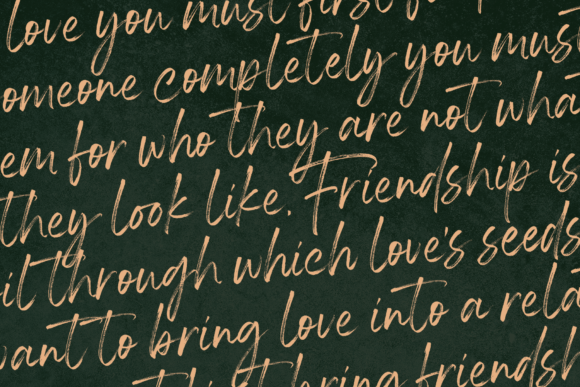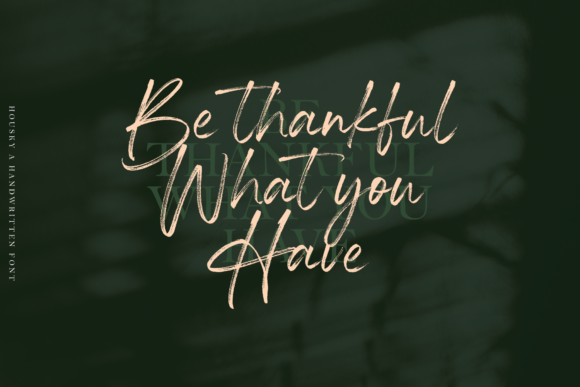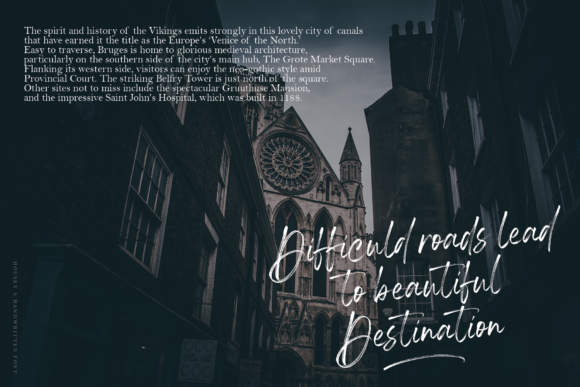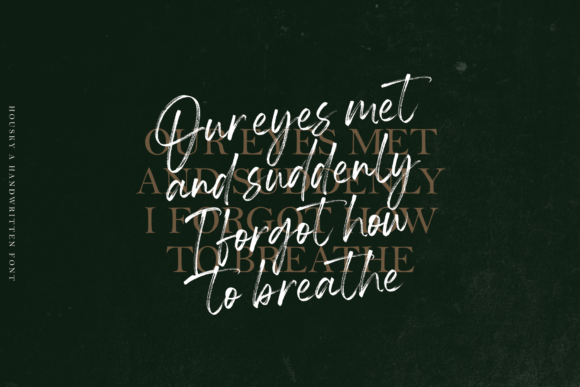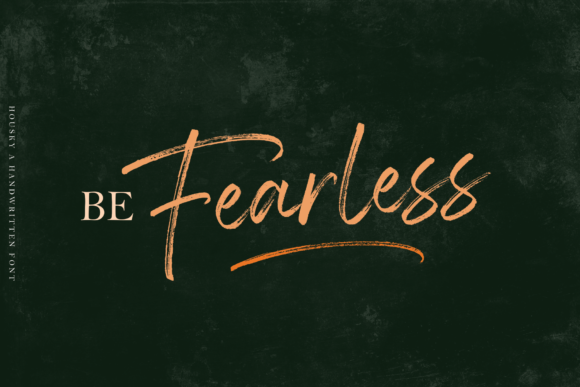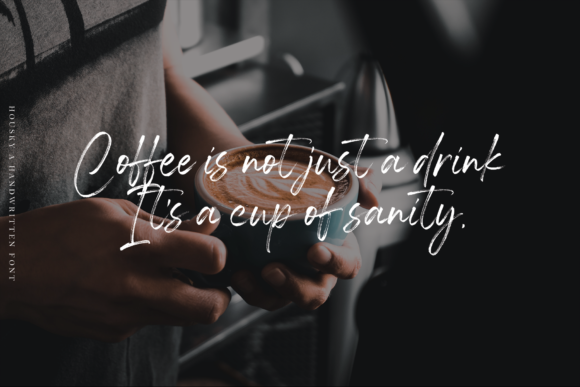
Bring Your Designs to Life with Housky Font
Have you ever been working on a design project and felt like something was missing – a spark of creativity that would take it from good to great? That’s where the Housky Font comes in – a modern and elegant script font made in a brush style that will add an incredibly joyful touch to your designs.
Whether you’re a seasoned designer or just starting out, the Housky Font is a valuable addition to your toolkit. Its unique brush style gives it a personal, handmade feel that’s perfect for adding a touch of warmth and personality to your work. By incorporating this beautiful font into your designs, you’ll be able to create something truly special – and make a lasting impression on your audience.
- Unique Characteristics: Housky Font features a unique blend of modern and vintage elements, with intricate details and ornaments that set it apart from other fonts.
Housky Font Review
As a designer, I’ve had the chance to work with Housky Font, and I’m excited to share my honest review with you. ✨ One of the things that stands out about this font is its unique blend of modern and retro elements. The subtle texture and rounded edges give it a warm, inviting feel that’s perfect for creative projects.
Here are some of the things that work well about Housky Font: ✨
- Unique blend of modern and retro elements
- Warm, inviting feel perfect for creative projects
- Subtle texture adds depth and interest
- Rounded edges make it easy to read
- May not be suitable for formal or corporate projects
- Lack of bold or italic variations
Overall, I think Housky Font is a great choice for designers who want to add a touch of personality to their projects. It’s perfect for creative fields like branding, advertising, or packaging design. However, it may not be the best fit for more formal or corporate projects.
Getting the Most Out of Housky Font
For best results, use Housky font in combination with bold or italic styles to add emphasis and visual interest. Experiment with different font sizes and colors to create a unique look.
Housky font is ideal for creative projects, such as:
- Graphic design and branding
- Typography-based art and illustrations
- Marketing and advertising materials Alternatives to Housky Font for Designers
Great Vibes Font is a beautiful, modern script font that is perfect for creating a friendly and approachable atmosphere in your designs. It is ideal for use in logos, branding materials, and marketing materials. Great Vibes Font has a more elegant and refined feel compared to Housky Font, which makes it a great choice for high-end designs.
Comparison to Housky Font: Great Vibes Font has a more polished and sophisticated look, making it a great choice for formal designs. Housky Font, on the other hand, has a more playful and casual feel.
Pacifico Font is a beautiful, elegant script font that is perfect for creating a sophisticated and refined atmosphere in your designs. It is ideal for use in logos, branding materials, and marketing materials. Pacifico Font has a more relaxed and casual feel compared to Housky Font, which makes it a great choice for designs that need a touch of elegance.
Comparison to Housky Font: Pacifico Font has a more laid-back and effortless feel, making it a great choice for designs that need a touch of sophistication. Housky Font, on the other hand, has a more playful and energetic feel.
For optimal readability, we recommend using a font size between 12-24 points and a line height of at least 1.2-1.5 times the font size. This will ensure the text remains clear and legible, even at smaller sizes.